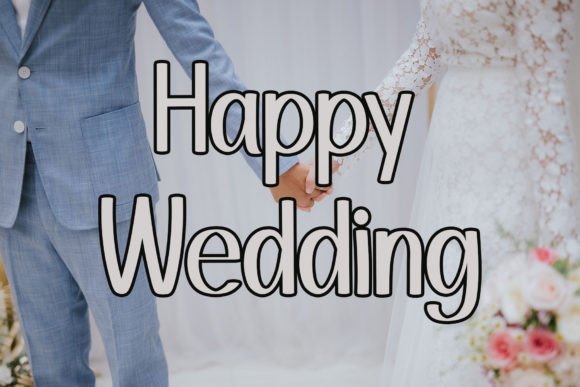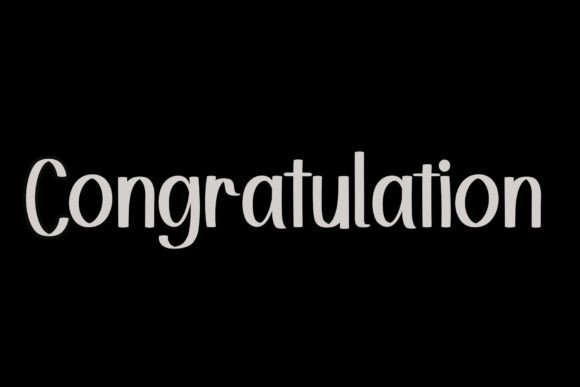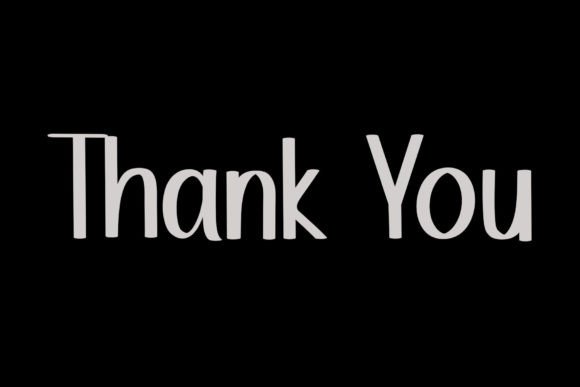
Find Your Perfect Pen Stroke with the Happy Planner Font
As a designer, you’ve probably experienced that moment when a single font can elevate an entire project. It’s like finding the perfect shade of color or the ideal balance of texture – it’s the difference between a good design and a great one. I still remember the day I discovered the Happy Planner Font, and how it instantly transformed my creative workflow.
The Happy Planner Font is a beautiful, handwritten script that combines timeless classic calligraphy with a modern twist. Its elegant form and contemporary atmosphere make it the perfect addition to any design project. Whether you’re working on a wedding invitation, a business card, or a blog post, the Happy Planner Font adds a touch of sophistication and class that’s hard to resist.
Happy Planner Font Key Features
- Unique Characteristics: The Happy Planner Font features a unique, handwritten style with a mix of cursive and print elements, adding a touch of personality to designs.
- Script and Print Styles: The font includes both script and print styles, allowing designers to create a range of effects and add visual interest to their work.
Designer Review: Happy Planner Font
I recently had the chance to work with the Happy Planner Font, and I’m excited to share my honest thoughts.
- The Happy Planner Font has a playful, modern feel that’s perfect for creative projects.
- The font is highly customizable, allowing for adjustments to size, color, and spacing.
- It’s a great choice for digital and print projects, and it works well in a variety of applications.
- The font is highly legible, even at small sizes.
- The font can be a bit too playful for more formal or professional projects.
- It may not be the best choice for projects that require a more traditional or serif font.
- Some users may find the font’s customization options overwhelming.
The Happy Planner Font is a solid choice for creative projects that require a modern, playful feel. While it may not be the best fit for every project, it’s definitely worth considering for digital and print projects that need a fun, eye-catching touch.
The Happy Planner font is ideal for:
- Planners and organizers
- Journaling and bullet journaling
- DIY paper crafting
- Handmade cards and invitations
Remember to use the font in a way that reflects your personal style and creativity.
Alternatives to Happy Planner Font for Designers
Pacifico is a beautiful, elegant script font that is perfect for creating a warm and inviting atmosphere. It’s ideal for use in invitations, quotes, and other creative projects where a touch of sophistication is needed.
Compared to Happy Planner Font, Pacifico has a more refined and polished look, making it suitable for a wider range of design applications. While Happy Planner Font is more playful and fun, Pacifico is more versatile and sophisticated.
Great Vibes is a modern, cursive font that is perfect for creating a lively and energetic atmosphere. It’s ideal for use in social media graphics, blog posts, and other digital content where a fun and playful tone is needed.
Compared to Happy Planner Font, Great Vibes has a more dynamic and expressive feel, making it suitable for a wider range of design applications. While Happy Planner Font is more straightforward and easy to read, Great Vibes is more attention-grabbing and engaging.